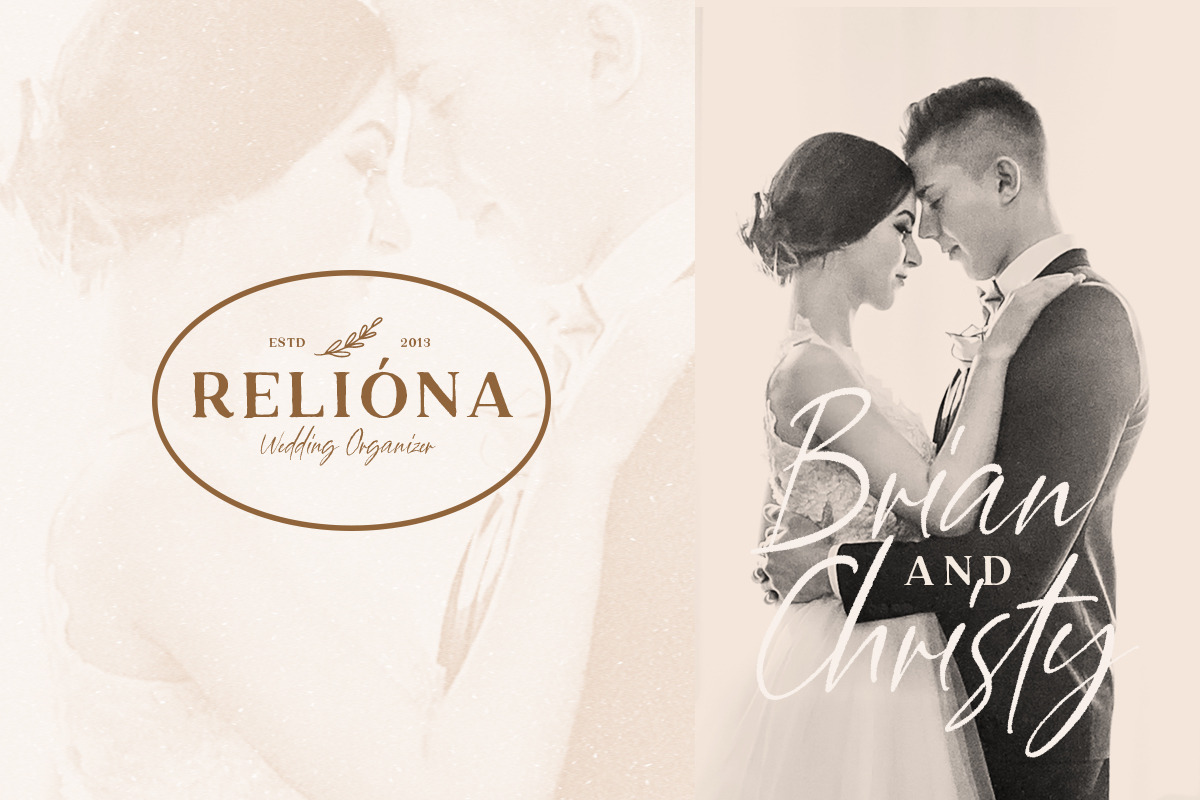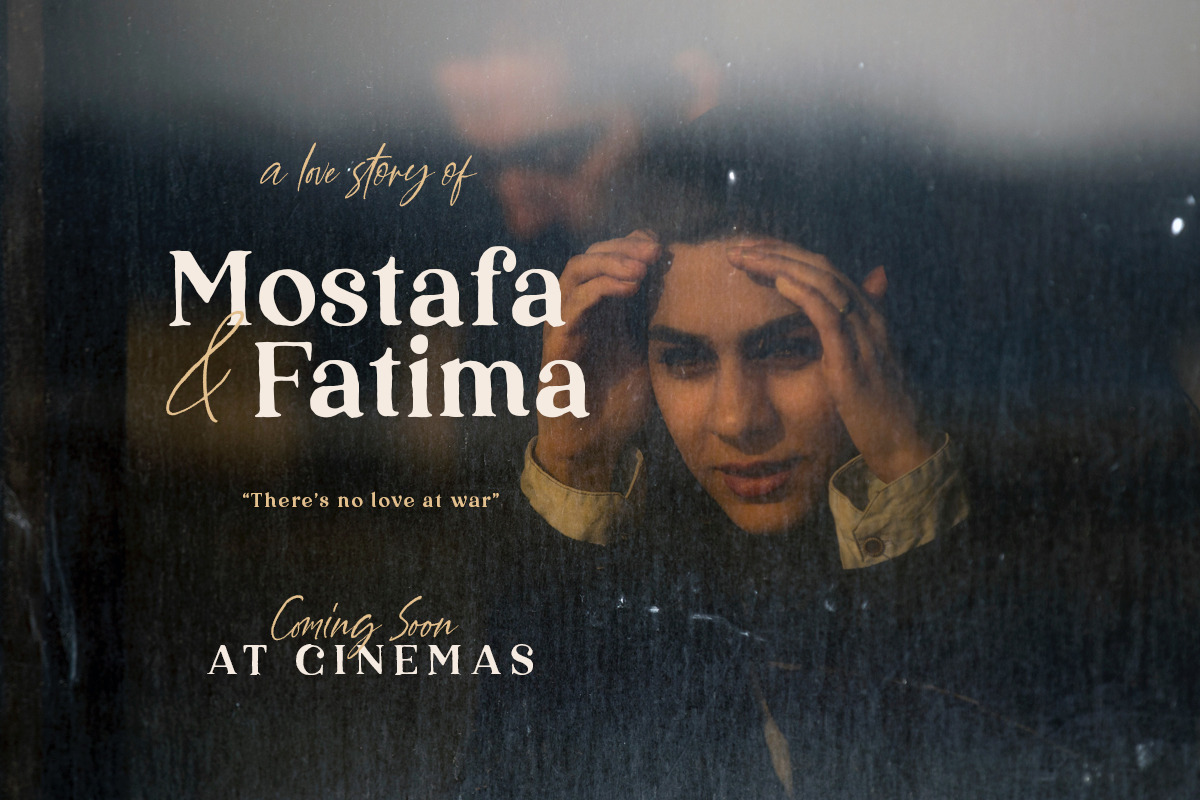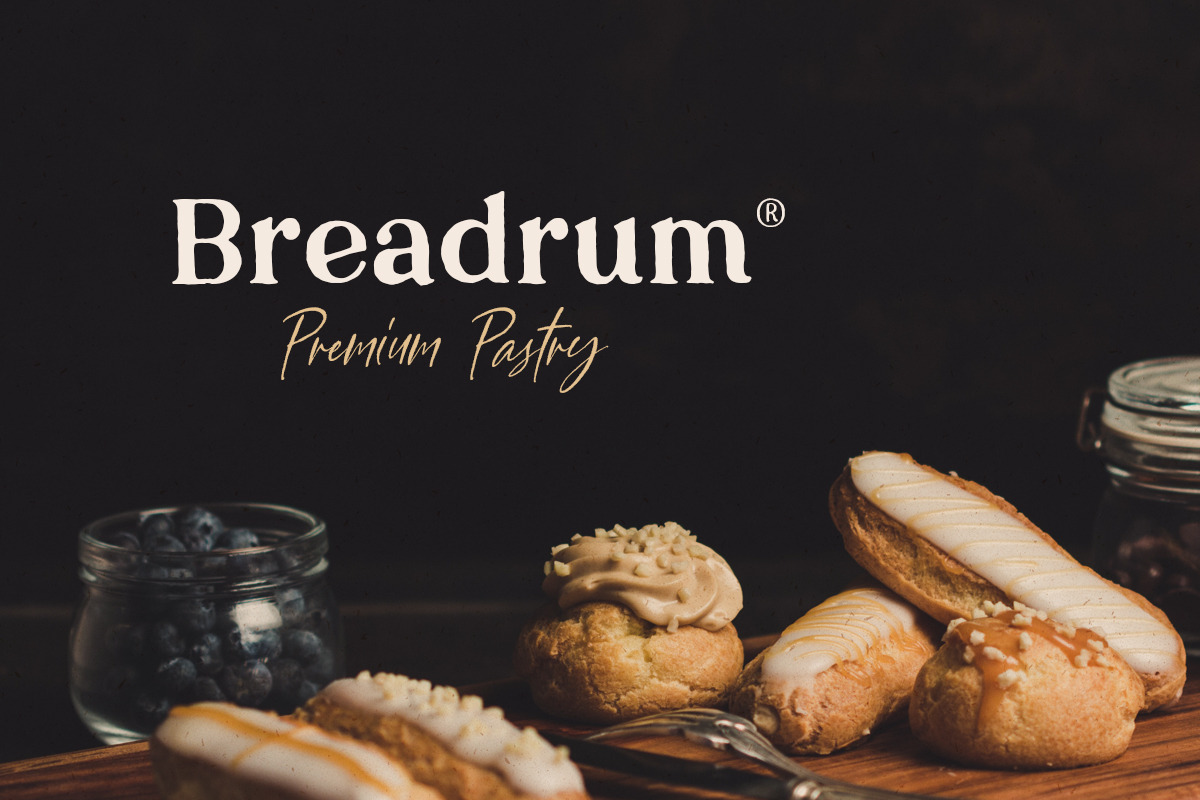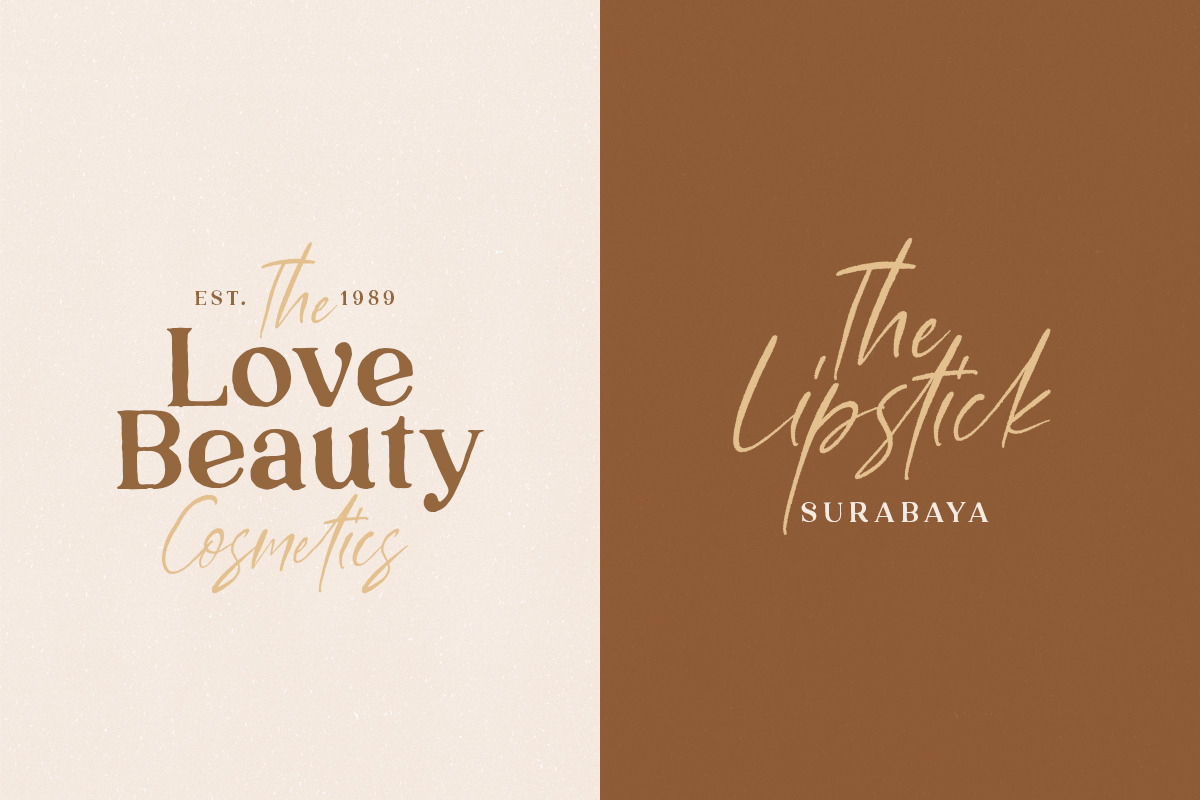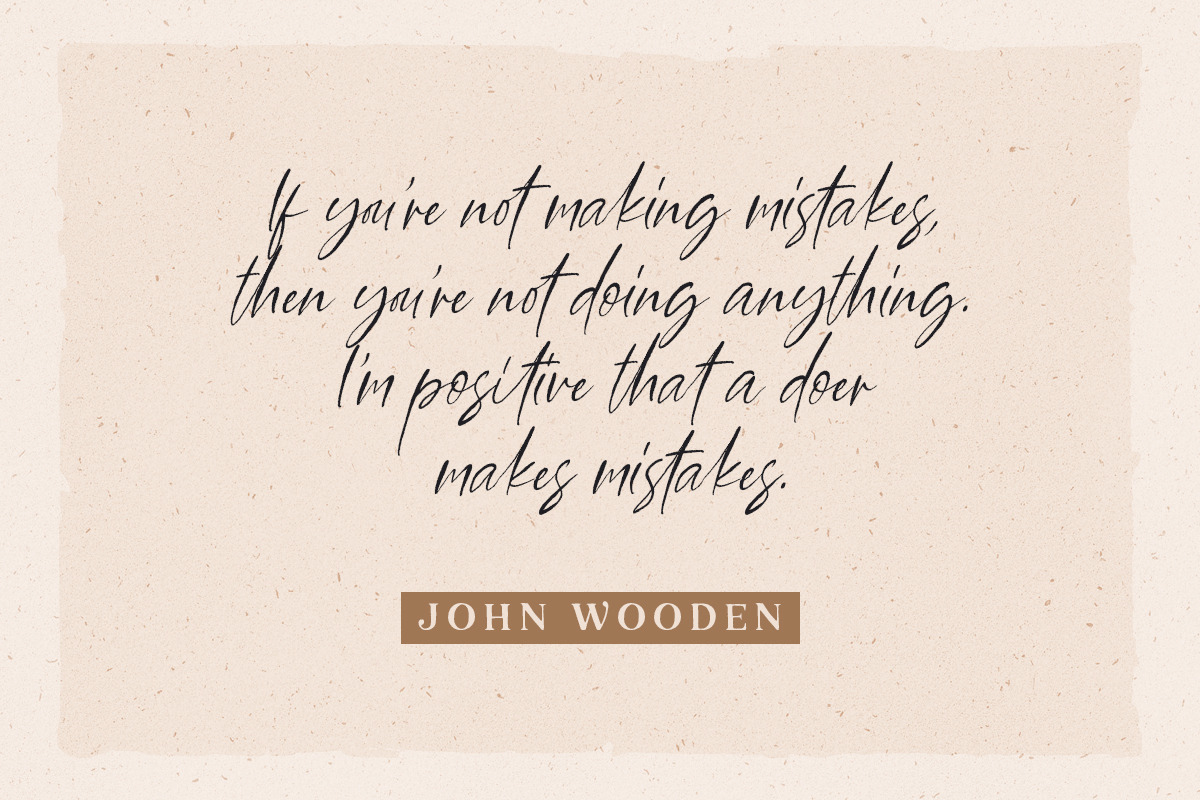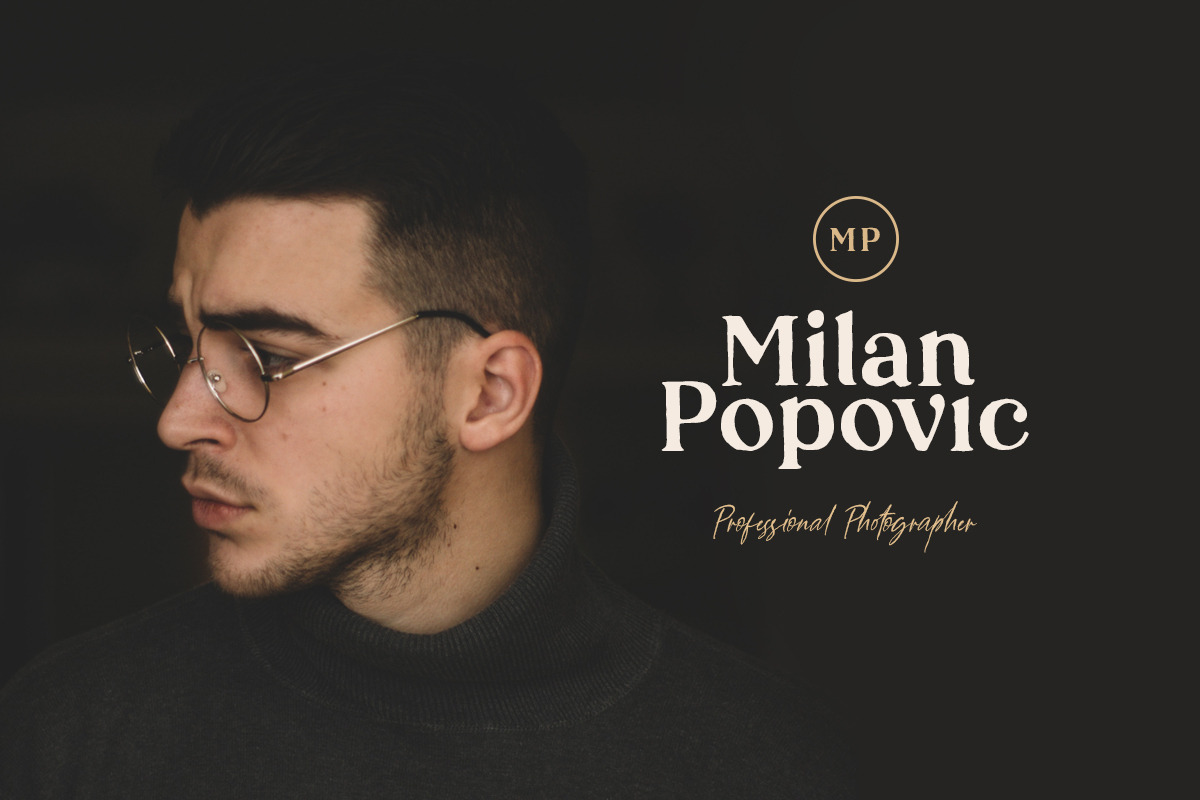
Louise Walker - FONT DUO
Introducing, Louise Walker - Font Duo | Organic Serif & Script
Louise Walker is perfect combination between serif with script font. Contain two fonts, the organic serif and a free handwritten signature script. This font duo also support multilingual, number and symbol, contextual alternates and many ligatures. Also this fonts already PUA Encoded.